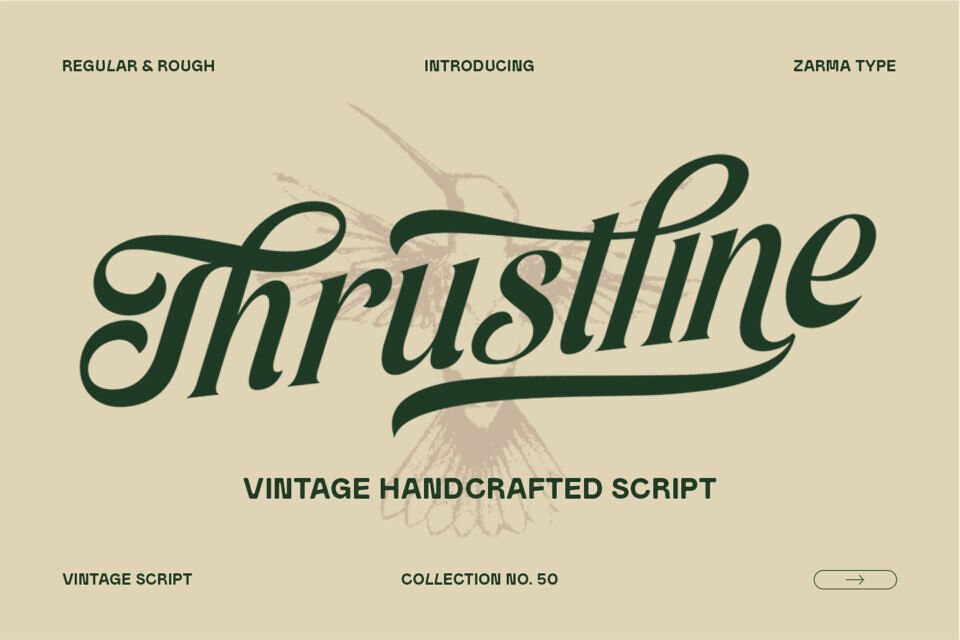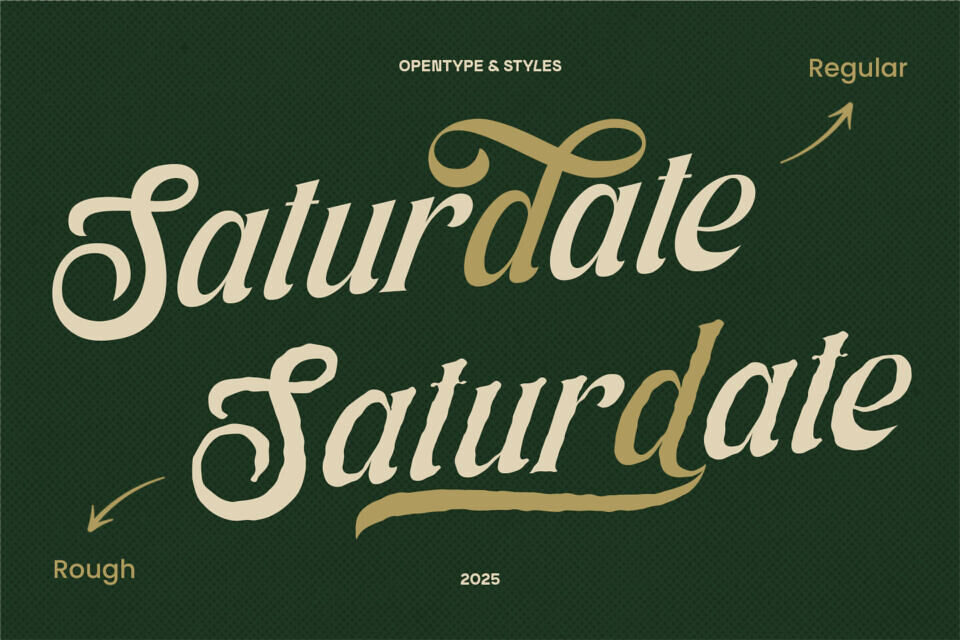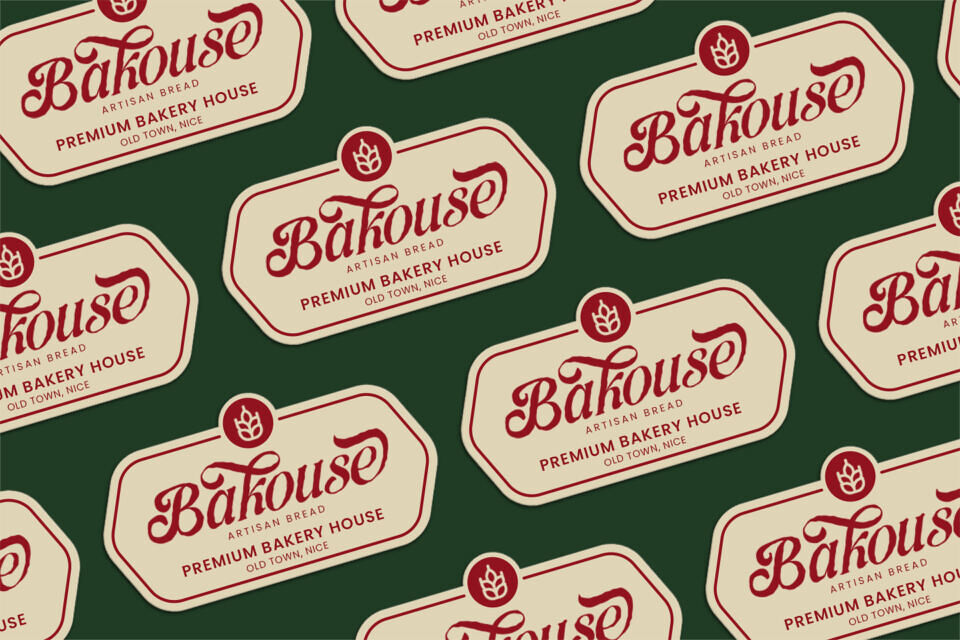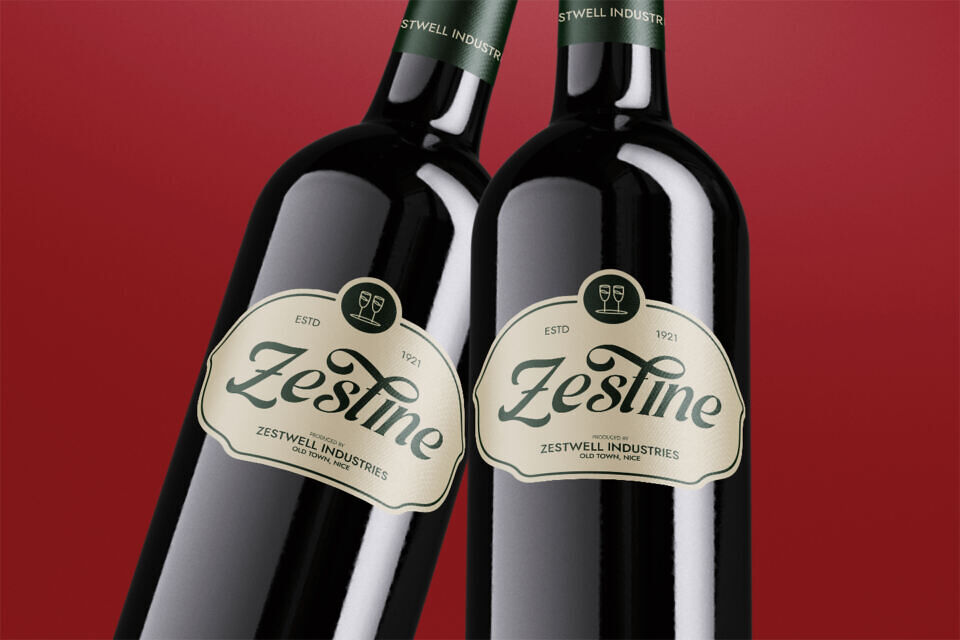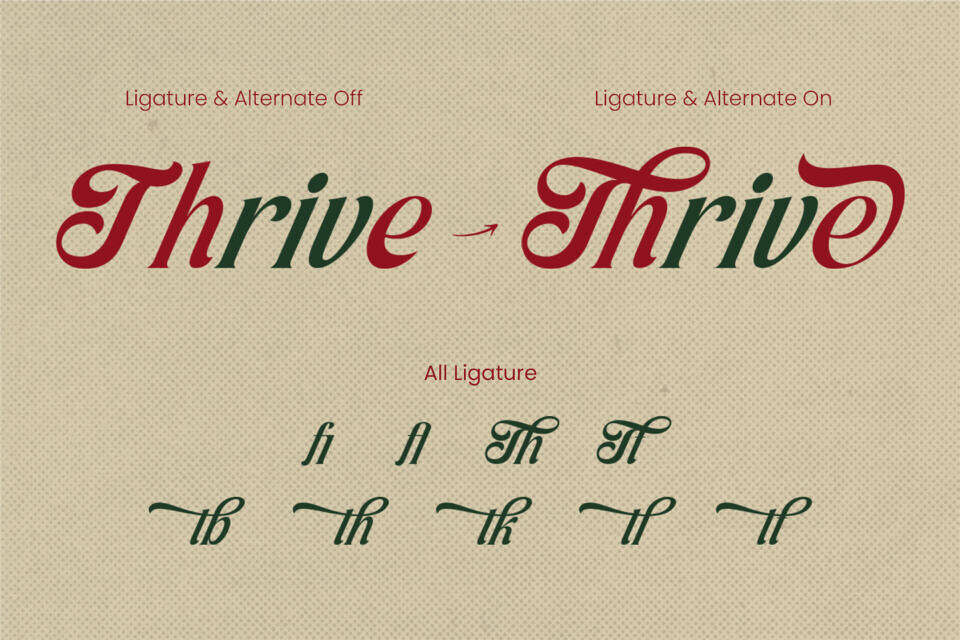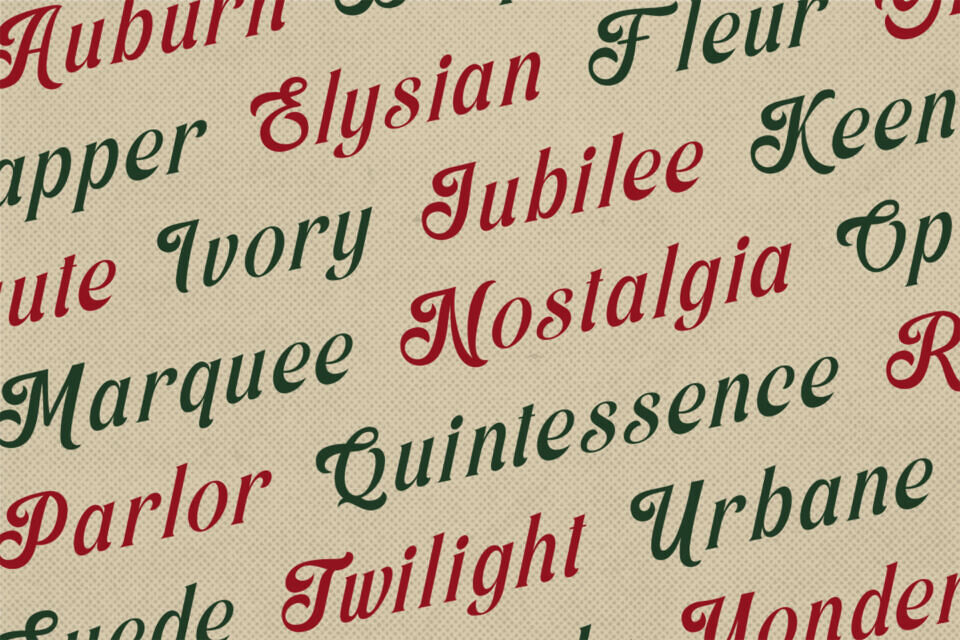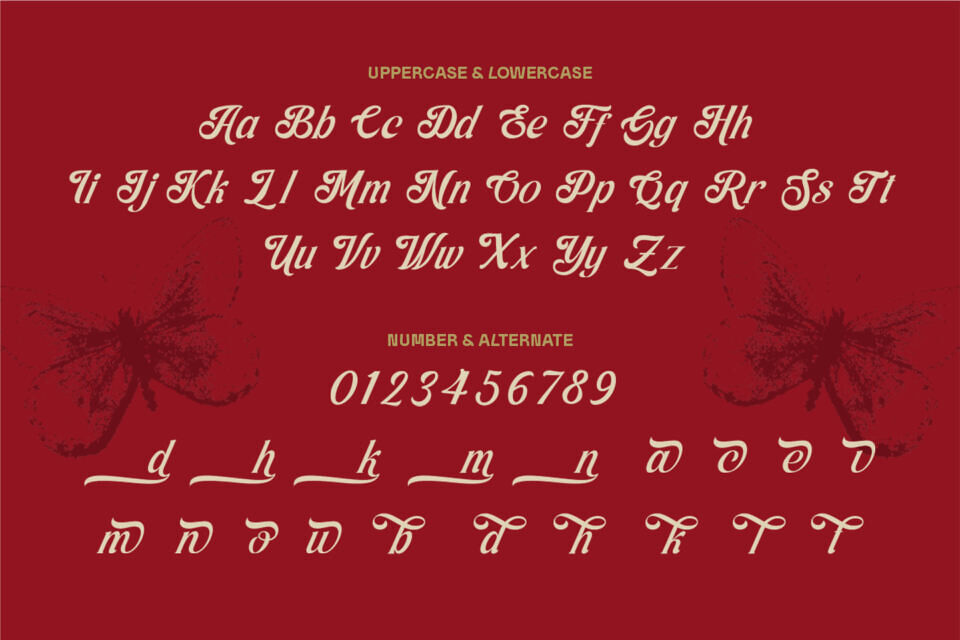
Thrustline, a Vintage Script Font, brings the charm of the past into modern design with its handcrafted lettering, flowing swashes, and expressive ligatures. Inspired by vintage packaging, wine labels, and classic sign painting, Thrustline is a retro script font that instantly elevates your visuals with bold personality and nostalgic flair. The Rough and Regular styles give you flexibility—perfect for everything from luxury branding to lifestyle logos, retro ads, and editorial titles.
Its stylistic alternates, ornate initials, and dynamic ligatures make every word feel personalized and custom-made. Whether you’re designing a timeless wine label, an old-school bakery identity, or a bold apparel brand, Thrustline offers the vintage warmth and charm that today’s design trends are craving. It’s a versatile retro script typeface that adds a premium, handcrafted touch to any layout or label design.